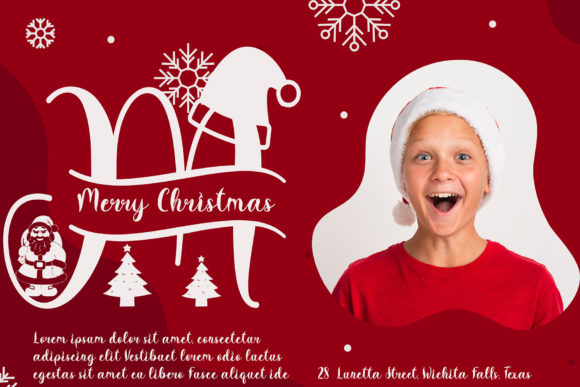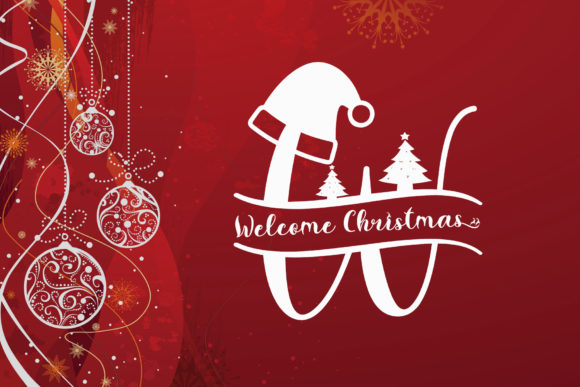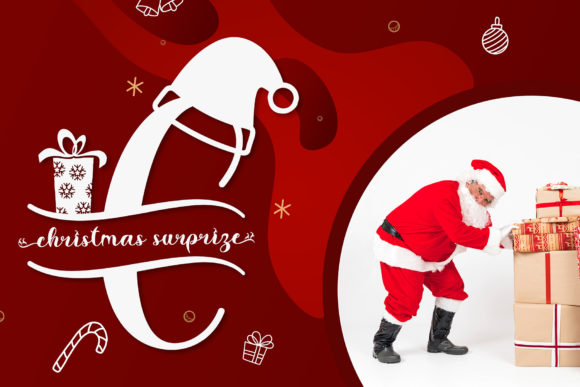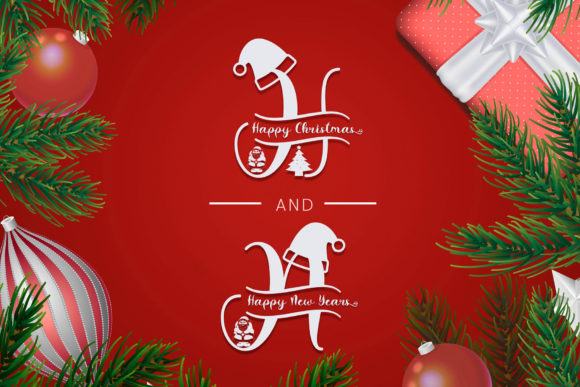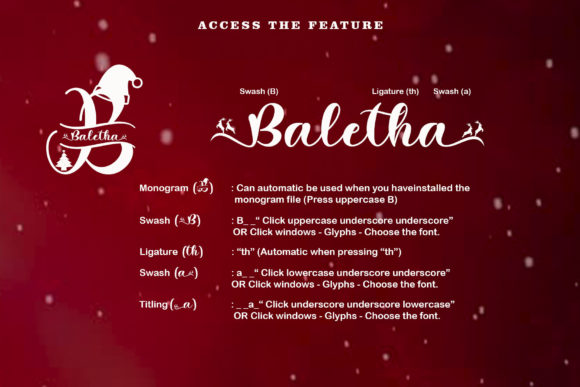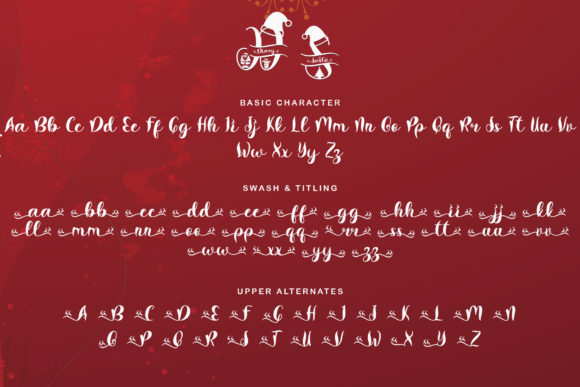
The Magical World of Diary Santa Monogram Font
Have you ever been in the middle of a design project, and suddenly, you’re stuck on finding the perfect font? I recall a recent experience where I was working on a whimsical craft project, and my client’s request for a “fun, yet elegant” font had me scouring the internet for hours. That’s when I stumbled upon the enchanting Diary Santa Monogram Font. Its unique blend of playfulness and sophistication instantly captured my attention, and I knew I had to share it with fellow designers and crafty enthusiasts!
So, what makes Diary Santa Monogram Font so special? Let’s dive into the good stuff and a few quirks I’ve discovered while working with this font.
- ✨ PUA Encoding: This font is PUA encoded, which means you can easily access all the glyphs and swashes. No more tedious searching for the perfect character!
- ✅ Versatility: Diary Santa Monogram Font is incredibly versatile, making it perfect for various design projects, from invitations and crafts to branding and advertising.
- 💫 Whimsical Style: The font’s relaxed theme and lovely style evoke a sense of playfulness, adding a touch of magic to any design.
While Diary Santa Monogram Font is an amazing addition to any design toolkit, there are a few things to keep in mind:
- ⚠️ Glyph Overload: With so many glyphs and swashes available, it can be overwhelming to navigate. Take some time to explore the font and get familiar with its features.
- 🤔 Pairing Challenges: As with any script font, pairing Diary Santa Monogram with other fonts can be tricky. Experiment with different combinations to find the perfect match.
While the true story behind Diary Santa Monogram Font remains a mystery, it’s easy to imagine that its creator was inspired by the magic of the holiday season. Perhaps they wanted to craft a font that would evoke the feeling of writing in a personal diary, with all its secrets and dreams. Whatever the inspiration, Diary Santa Monogram Font is sure to bring a touch of whimsy and wonder to your designs.
| Font Name | Diary Santa Monogram Font |
Q: What is PUA encoding, and how does it benefit font users?
A: PUA (Private Use Area) encoding allows font creators to include additional characters, glyphs, and swashes that aren’t part of the standard Unicode character set. This means you can access a wider range of characters and create more unique designs.